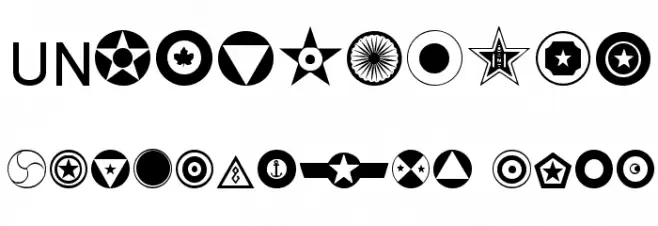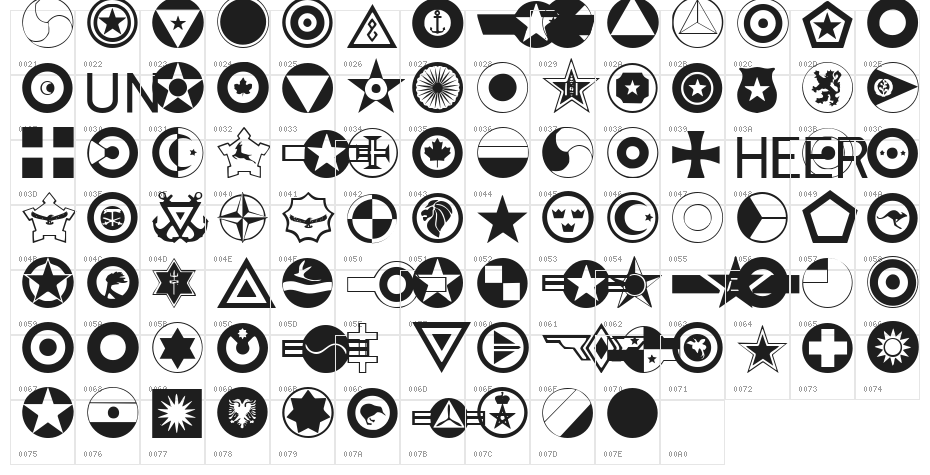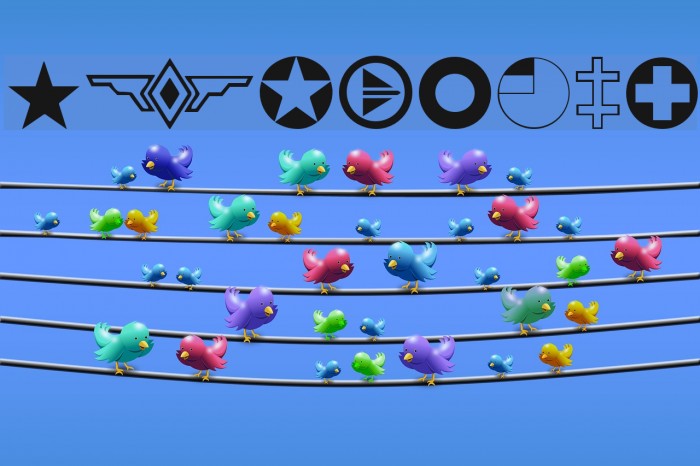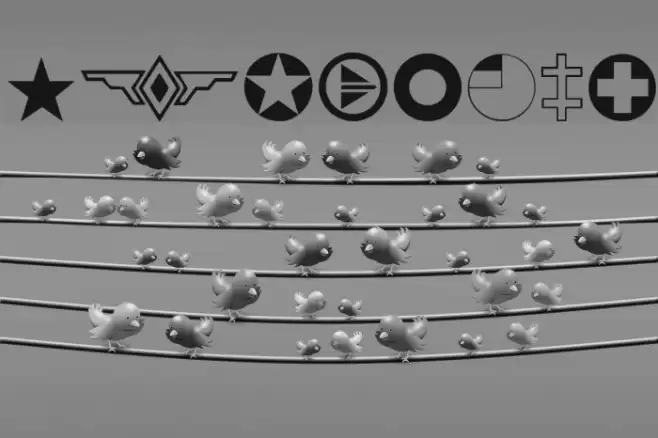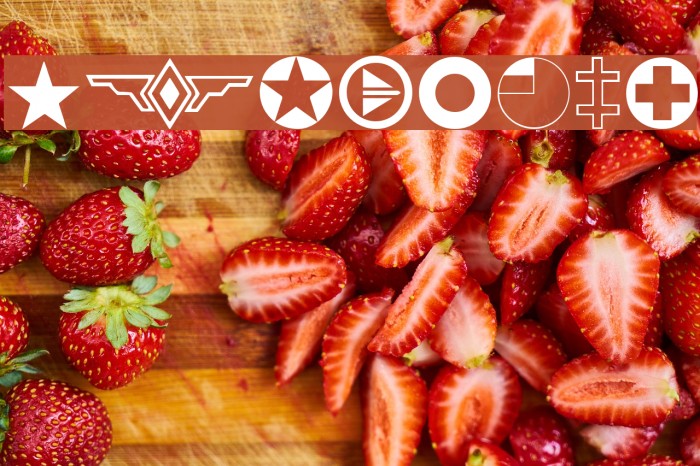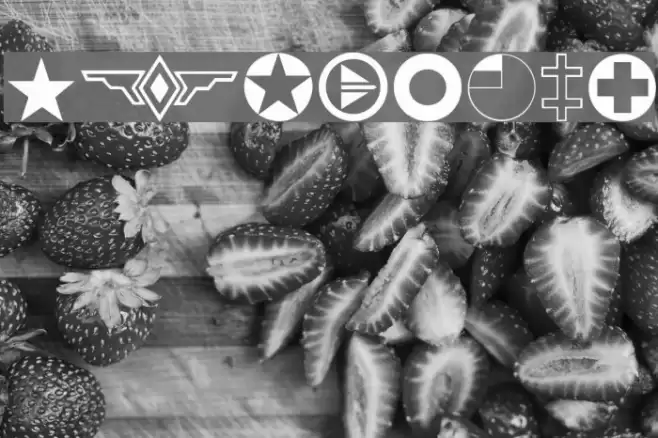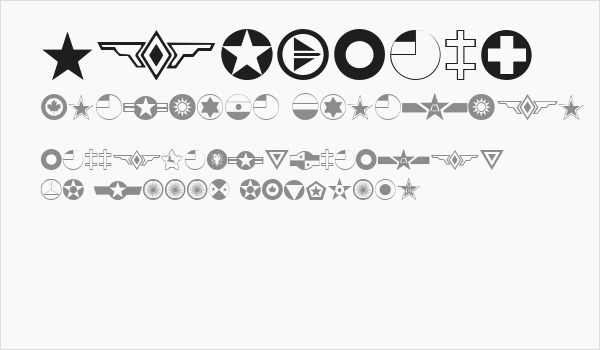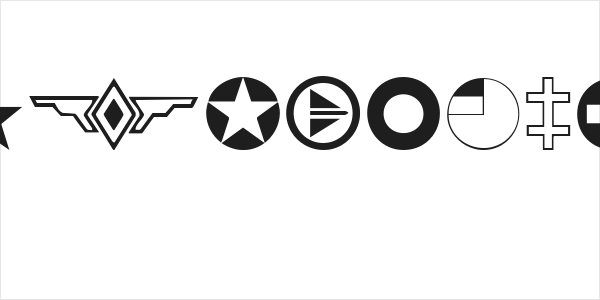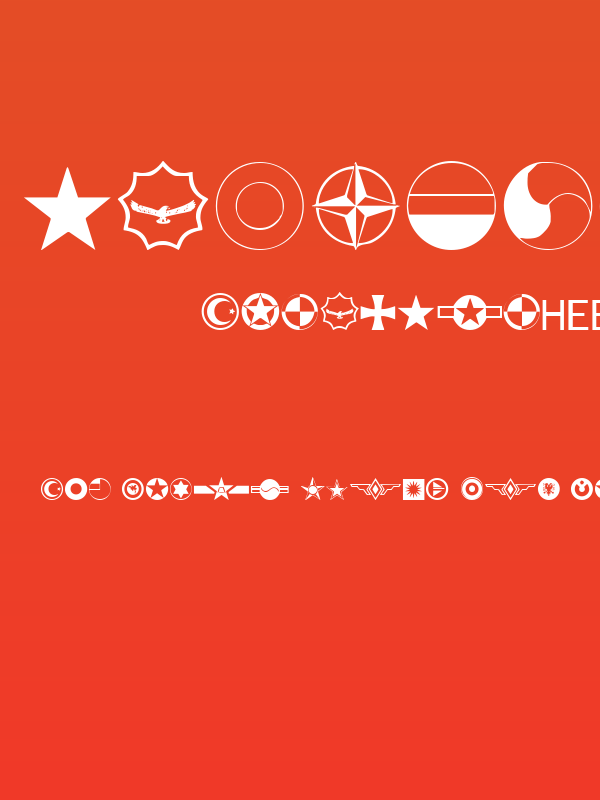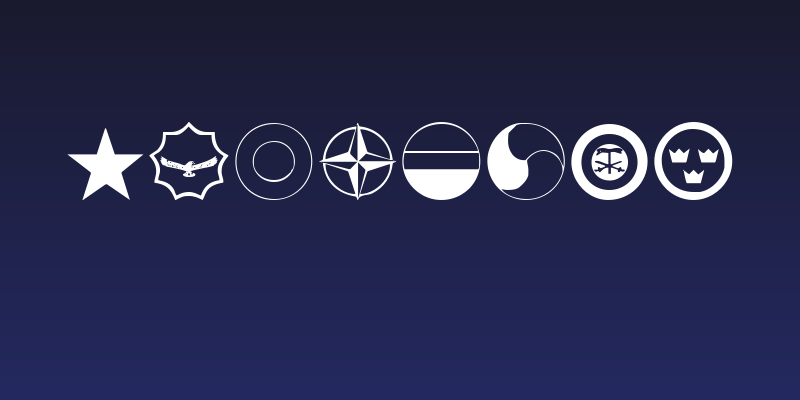
Roundels Font
Roundels Description
A decorative display font composed of various military and national roundels, insignias, and geometric symbols, interspersed with simple sans-serif letters. The glyphs are bold, high-contrast, and mostly circular or star-based, evoking a sense of authority and international identity.
| Overall Style | Decorative, Modern, Thematic |
| Use Case | Logos, Headlines, Thematic graphics, Educational visuals |
| Proposed Projects | Posters, educational materials, military-themed designs, infographics, branding for games or museums. |